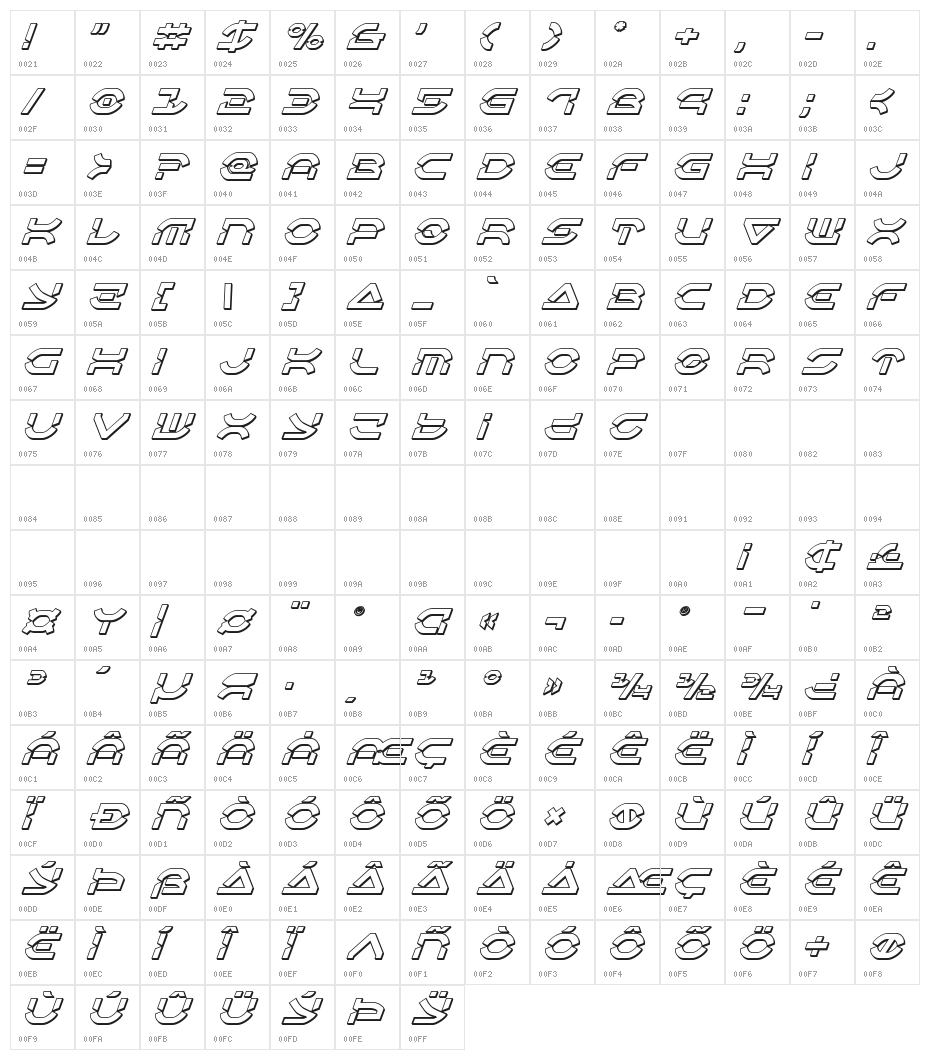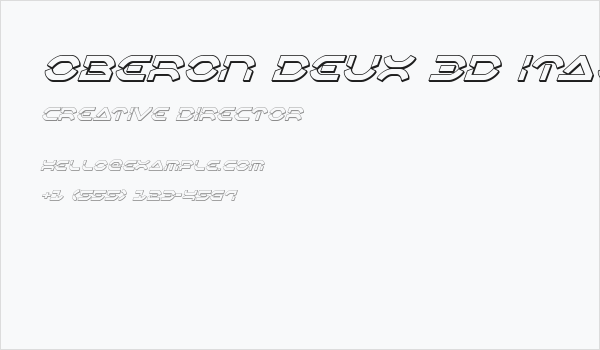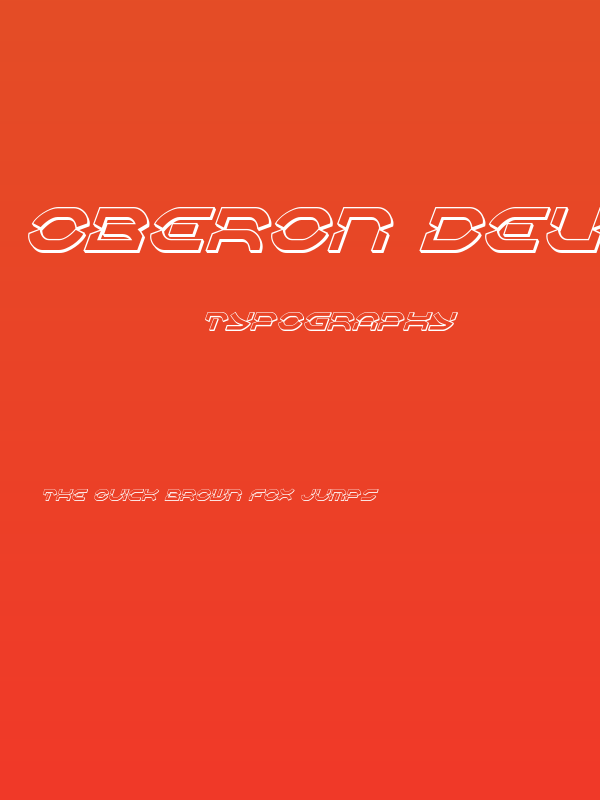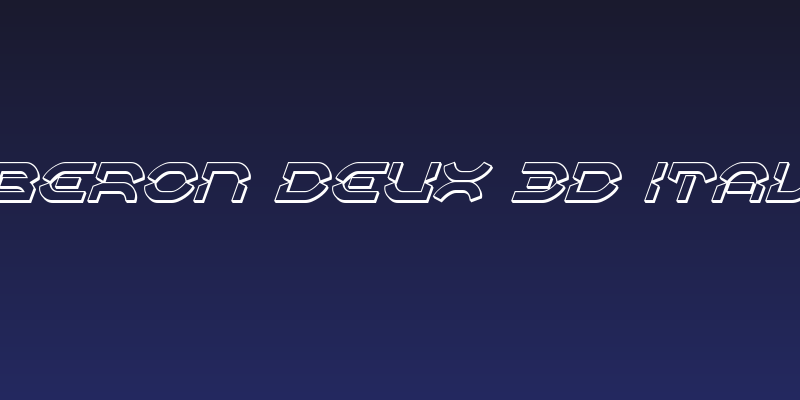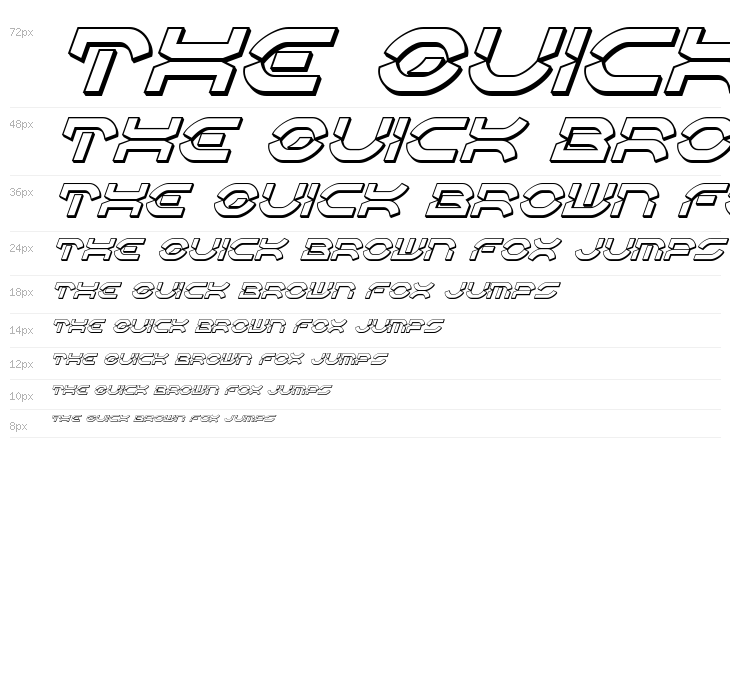
Oberon Deux 3D Italic Font
Oberon Deux 3D Italic Description
This font features a bold, three-dimensional design with an italic slant, creating a futuristic and dynamic appearance. The characters are outlined, giving them a hollow look that enhances the 3D effect. Each letter is constructed with sharp angles and geometric shapes, contributing to a modern and edgy style. The uppercase and lowercase letters maintain a consistent design, while the numbers and special characters follow the same aesthetic, ensuring uniformity across all glyphs. The font's unique structure makes it stand out, ideal for projects that require a strong visual impact.
| Proposed Projects | Ideal for sci-fi themed designs, video game graphics, posters, and branding that requires a modern and striking appearance. |